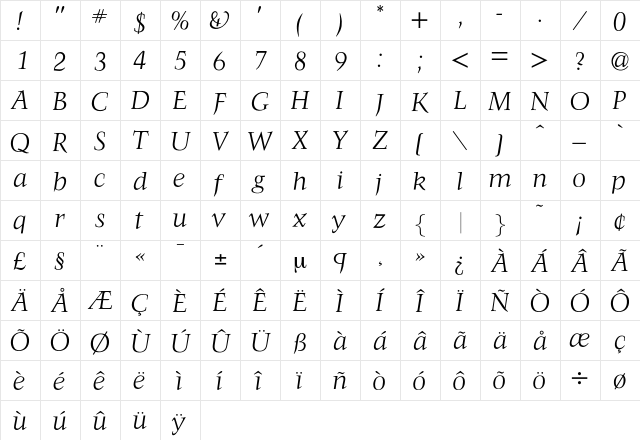
FrancoisLightItalic Regular Font Preview
Design Context for FrancoisLightItalic Typeface
FrancoisLightItalic takes a measured approach to typography — its balanced proportions and neutral character make it a reliable workhorse for both digital and print work. The dynamic lean of this cut emphasises speed and emphasis in any layout. The delicate stroke weight brings airiness and refinement to layouts.
Pro Tip: Try FrancoisLightItalic for annotation and caption copy alongside an upright companion — the contrast in angle creates a dynamic but ordered typographic system.